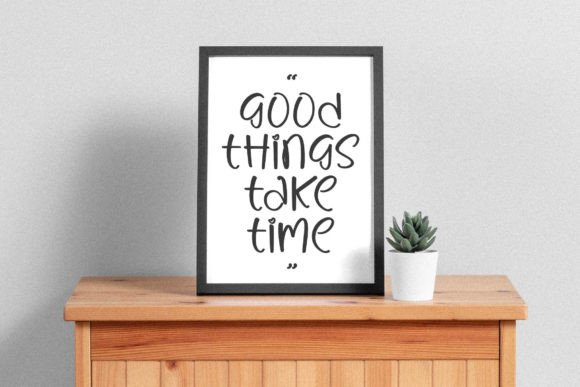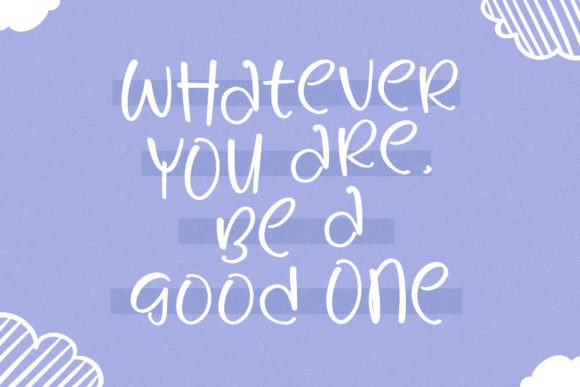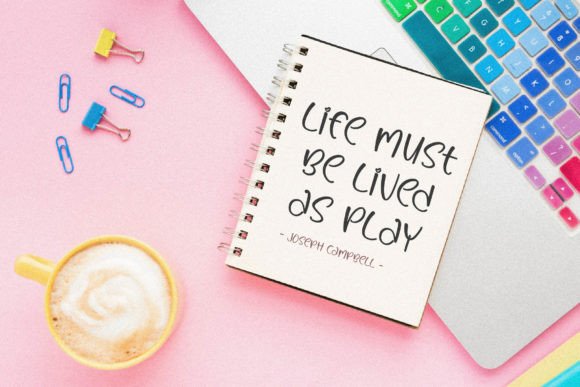
Introduction to Smile Water Font
As designers, we’ve all been there – staring at a blank canvas, searching for the perfect font to bring our creative vision to life. The moment of truth arrives when we stumble upon a font that makes our project truly shine. That’s exactly what happened when I discovered the Smile Water Font – a quirky, handwritten masterpiece that has become my go-to choice for any project requiring a beautiful script touch.
Smile Water Font is more than just a design resource – it’s a valuable asset for any designer looking to add a personal, high-quality touch to their creative project. With its free download option and transparent background, this font is perfect for designers who need a reliable, versatile tool to elevate their work. Whether you’re working on logos, branding projects, or product packaging, Smile Water Font is sure to bring a smile to your face and a touch of elegance to your design.
Key Features of Smile Water Font
- Transparent Background: This font features a transparent background, allowing you to easily combine it with any design or image.
- High-Quality Design: The font is designed with high quality in mind, ensuring crisp and clear text that is perfect for any project.
- Large Character Set: The font includes a large character set, including uppercase and lowercase letters, numbers, and punctuation.
- High Resolution: Smile Water Font is designed at 300 DPI, making it suitable for use in high-resolution designs and prints.
- Perfect for Creative Projects: With its unique and playful design, Smile Water Font is ideal for use in creative projects such as logos, branding, and advertising.
Honest Review: Smile Water Font
- ✨ High-quality design that looks great on a transparent background
- ✨ Versatile and can be used for a wide range of creative projects
One of the standout features of the Smile Water Font is its high-quality design. It’s perfect for designers who want to add a touch of elegance to their projects. The font is also highly versatile and can be used for a wide range of creative projects, from logos to brochures.
- ⚠️ Limited character set, which may be a limitation for some designers
- ⚠️ Not as extensive as some other font options on the market
Overall, I’m really impressed with the Smile Water Font. It’s a great addition to any designer’s toolkit and is definitely worth checking out. With its high-quality design and versatile nature, it’s a great resource for any creative project.
Smile Water Font
The Smile Water Font is a high-quality design resource available for free download. It features a transparent background, making it a versatile choice for various creative projects.
Tips for Getting the Most Out of Smile Water Font
For optimal results, use the font in conjunction with a contrasting background to maximize visibility. Experiment with different font sizes and styles to add visual interest to your design.
The Smile Water Font is suitable for a wide range of creative projects, including social media graphics, presentations, and marketing materials. Its versatility and high-quality design make it an excellent choice for designers and non-designers alike.